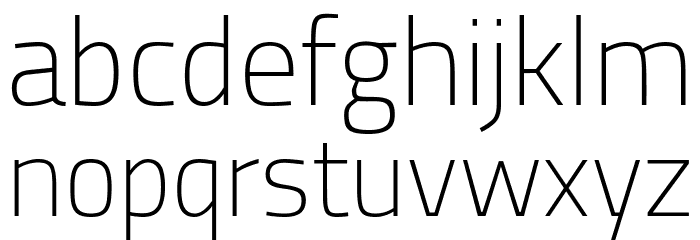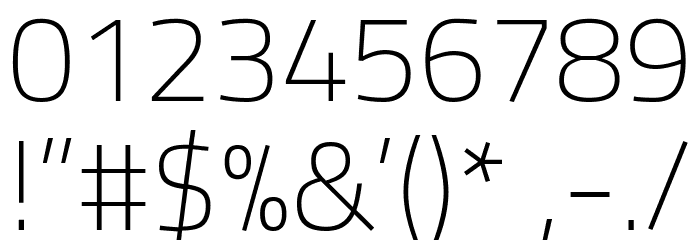
Storia Sans Thin Font
This font features a clean and modern sans-serif design with thin strokes that give it a sleek and elegant appearance. The characters are well-proportioned, with a consistent stroke width that maintains readability while providing a minimalist aesthetic. The uppercase letters are tall and slightly narrow, while the lowercase letters are rounded and open, contributing to a friendly yet professional look. The numerals are clear and distinct, making them suitable for various applications. Special characters are included, maintaining the font's cohesive style. Overall, this font is versatile and can be used in a variety of design contexts.
A modern, thin sans-serif font with a sleek and minimalist design.
- Proposed Projects: Ideal for branding, editorial design, websites, and user interfaces where a clean and modern look is desired.